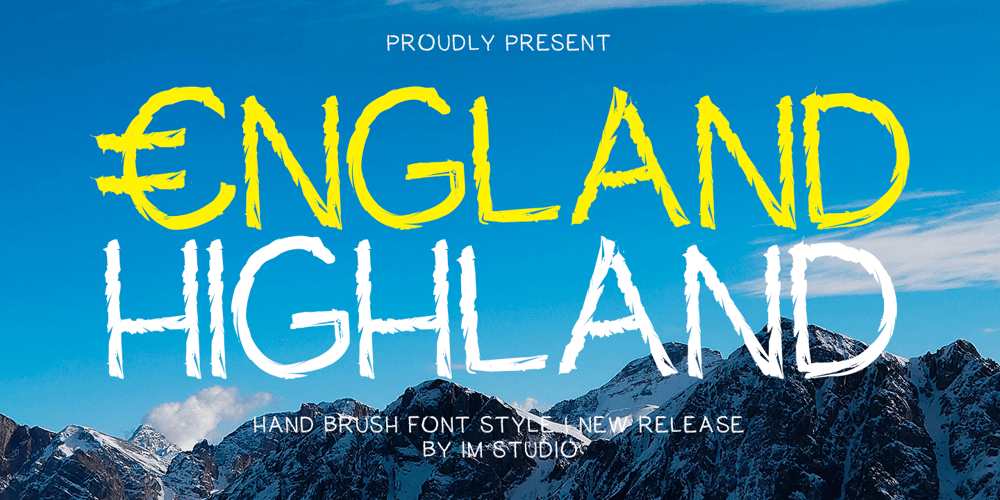
England Highland
England Highland font
England Highland Font Family was designed by Ikhsan Maulana and published by IM Studio. England Highland contains 2 styles and family package options. England Highland embodies the spirit of spontaneous creativity with its bold, hand-painted strokes. This font embraces the raw energy of a brush on canvas, celebrating expressive, free-flowing lettering over perfect lines and polished edges. It evokes sun-drenched afternoons and a laid-back artistic vibe, bringing warmth and character to any design. With its textured edges and striking presence, England Highland is the ideal choice for projects that seek an authentic, handcrafted touch. Whether for surf-inspired graphics, casual branding, or dynamic typography, this font infuses every creation with vibrant personality and a hint of that unmistakable coastal charm.